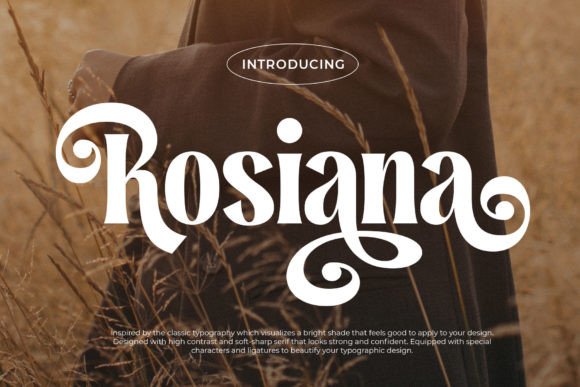
In the realm of typography, Rosiana Font stands tall as a beacon of sophistication and allure. This serif font, meticulously crafted by the talented artisans at Arterfak Project, exudes a timeless elegance that captivates the senses like a gentle summer breeze. With its graceful curves and delicate details, Rosiana Font adds a touch of refinement to any project, like a perfectly tailored suit that commands attention without uttering a single word.
Journey through the world of Rosiana Font and discover a treasure trove of creative possibilities. Whether you're crafting a photo book that captures the essence of your cherished memories, designing a website that exudes professionalism and grace, or creating social media posts that demand attention, Rosiana Font is your steadfast companion, guiding you towards typographic excellence.
Immerse yourself in the beauty of Rosiana Font and let its allure cast a spell on your designs. Its timeless aesthetic complements a myriad of projects, from elegant invitations and greeting cards to captivating logos and branding materials. Rosiana Font is more than just a collection of characters; it's an expression of your unique style, a reflection of your passion and creativity.
Unlock the full potential of Rosiana Font's PUA encoding and unleash the power of glyphs and swashes. Effortlessly access a world of hidden characters and embellishments that add depth and intrigue to your designs. Experiment with ligatures that seamlessly connect letters, creating a cohesive flow that dances across the page. With Rosiana Font, your creativity knows no bounds.
Rosiana Font's versatility extends beyond its aesthetic appeal. Its multilingual capabilities allow you to communicate with audiences from diverse linguistic backgrounds, breaking down barriers and connecting people through the universal language of beauty. Whether you're crafting content for a global website or designing materials for an international audience, Rosiana Font ensures that your message reaches far and wide, resonating with hearts and minds across borders.